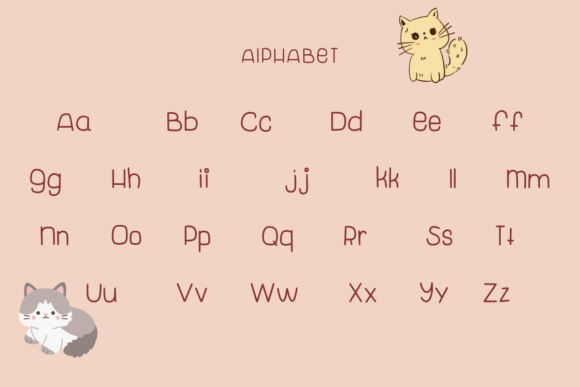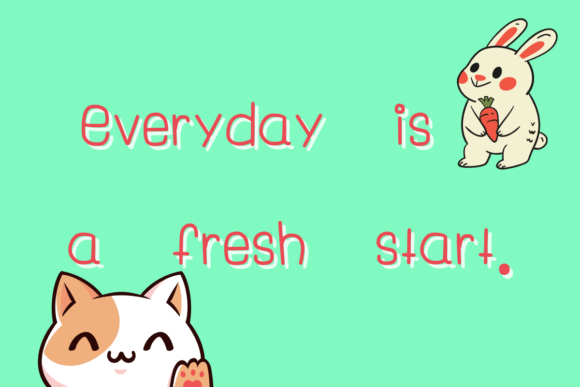
Smile Font
Brighten Your Designs with Smile Handwritten Font
The Smile Handwritten Font is a cheerful and versatile typeface that brings positivity and personality to any design. With its casual letterforms and smooth curves, Smile is perfect for projects that aim to be approachable, expressive, and fun. Whether you’re creating playful branding or social media content, Smile makes your text shine with friendliness.
Ideal for Creative Projects and Everyday Use
This font’s simplicity is one of its greatest strengths. Smile Handwritten Font fits beautifully into a variety of contexts, including branding, greeting cards, social media posts, and children’s designs. Its informal style makes it easy to use for both personal and commercial projects.
Moreover, Smile works well for inspirational quotes, DIY craft projects, lifestyle blogs, and even casual logo design. It’s highly adaptable and easy to pair with other fonts, giving you full creative freedom.
A Simple Script with a Fun and Friendly Personality
What makes Smile truly stand out is its light-hearted charm. The letterforms are clean yet playful, giving it a relaxed and welcoming feel. This makes your message appear more authentic and engaging—especially when you want to connect with your audience on a personal level.
In addition, the font has a smooth rhythm and flow, allowing for excellent readability even in longer texts or layered over images.
Perfect for Digital and Print Media
Whether you’re designing for screen or paper, Smile performs beautifully. Its clean stroke weight and well-balanced spacing ensure that it looks great in web graphics, printable items, and marketing materials alike.
For example, you can use Smile in your Instagram captions, Etsy shop banners, thank-you cards, or packaging labels. Because of its friendly tone, it adds warmth and approachability wherever it’s used.
Why Choose Smile Handwritten Font?
Here’s why designers and creatives love using Smile:
• Friendly, clean, and playful handwritten style
• Ideal for branding, social media, and print designs
• Readable and balanced across all sizes
• Works well in layered compositions and design overlays
• Adds charm and a personal touch to every project
Let Your Designs Shine with a Smile
In conclusion, the Smile Handwritten Font is a flexible and fun script that brings joy to every creative idea. Its simplicity and friendliness make it a must-have in your font collection—especially if you’re working on designs that need a touch of personality.
Whether you’re a designer, crafter, or content creator, Smile can help you express your ideas in a way that feels light, lively, and true to your vision. Let it brighten your next project and leave a lasting impression.